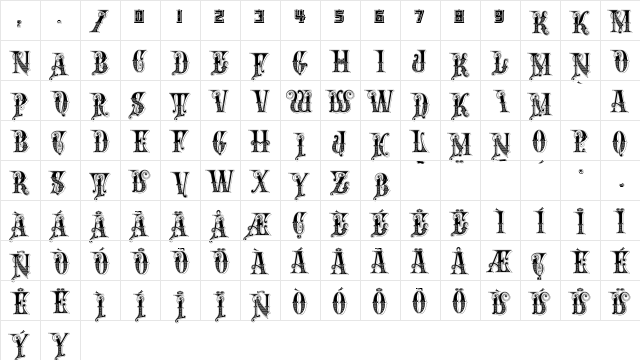
Rough Riders Alt Caps Regular
Design Context for Rough Riders Alt Caps Typeface
Rough Riders Alt Caps trades polish for personality, using distressed and eroded forms to bring grit and attitude to creative work.
Suited to punk-influenced zines, underground music branding, streetwear, and raw, anti-corporate design.